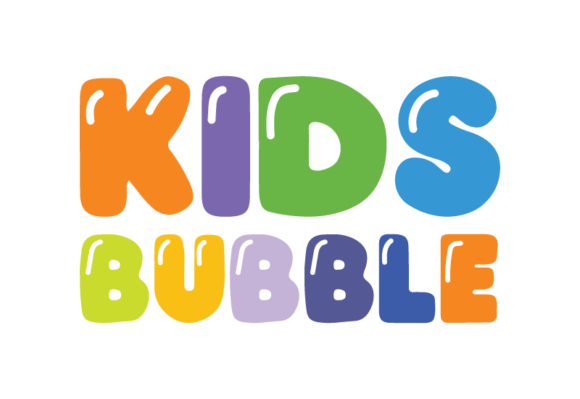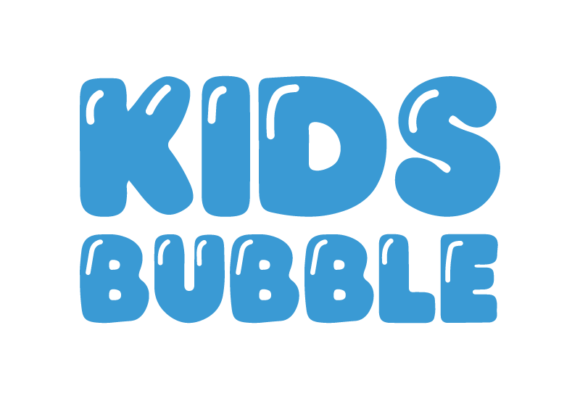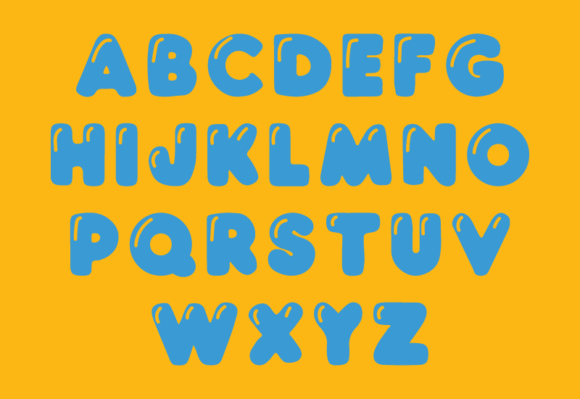
Kids Bubble Font
Introducing the vivacious Kids Bubble Font, a captivating display that encapsulates the spirit of childhood. Skillfully engineered to exhibit an uninhibited, playful allure, this font bursts through with delightful characters to recreate the familiar and joyful scribbles synonymous with children’s handwriting. With an undercurrent of whimsy, each letter in this set adds a dash of cheer, making Kids Bubble Font the go-to choice for any project aimed at a youthful audience. Celebrate creativity and enliven your works with the youthful charm and lighthearted essence of the Kids Bubble Font today.